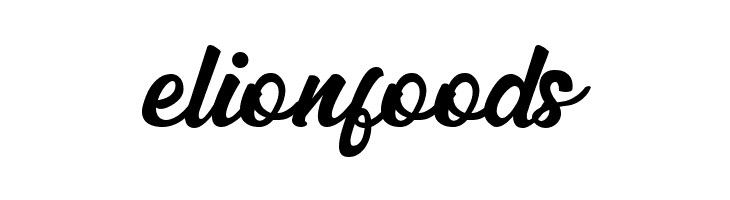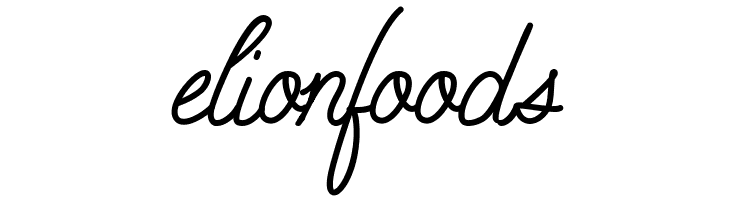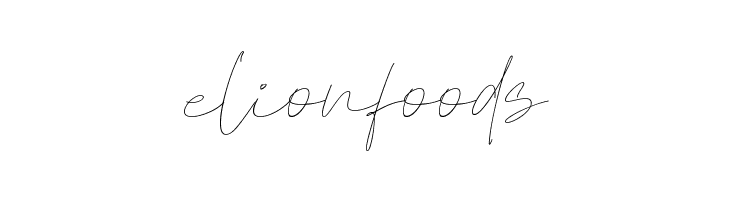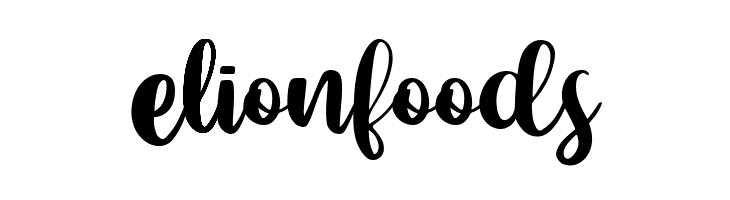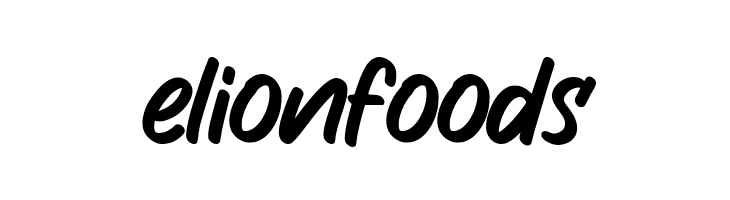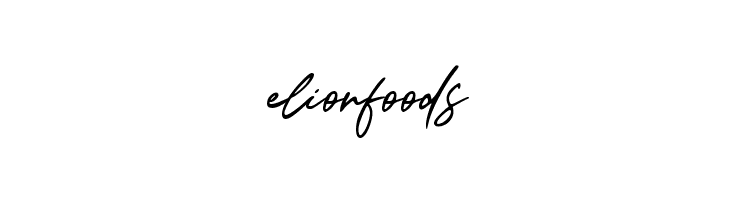
A bold, cursive font with a flowing, handwritten style.
A classic cursive font with elegant, flowing lines and connected characters.
A delicate, cursive handwritten font with a flowing, elegant style.
A flowing, elegant script font with a modern, handwritten style.
A chalk-inspired, hand-drawn font with a textured, playful style.
A bold, playful script font with a handwritten style.
A bold, energetic script font with a handwritten feel.
A graceful and elegant script font with flowing cursive letters and intricate swashes.
A graceful and elegant script font with flowing cursive letters.
A flowing, cursive font with elegant, connected letters and a handwritten style.